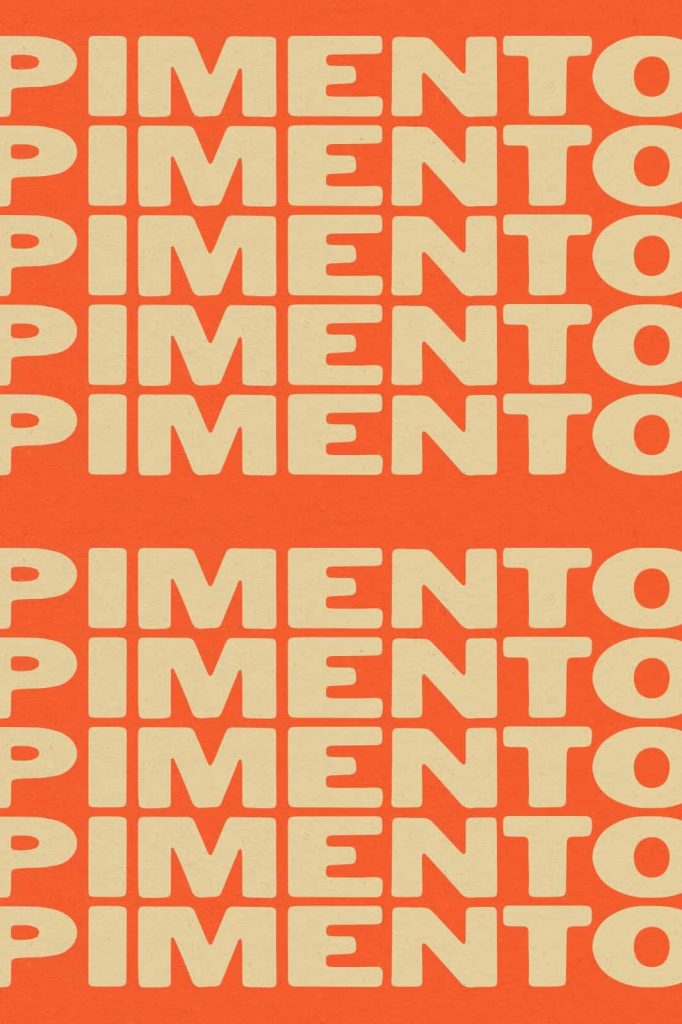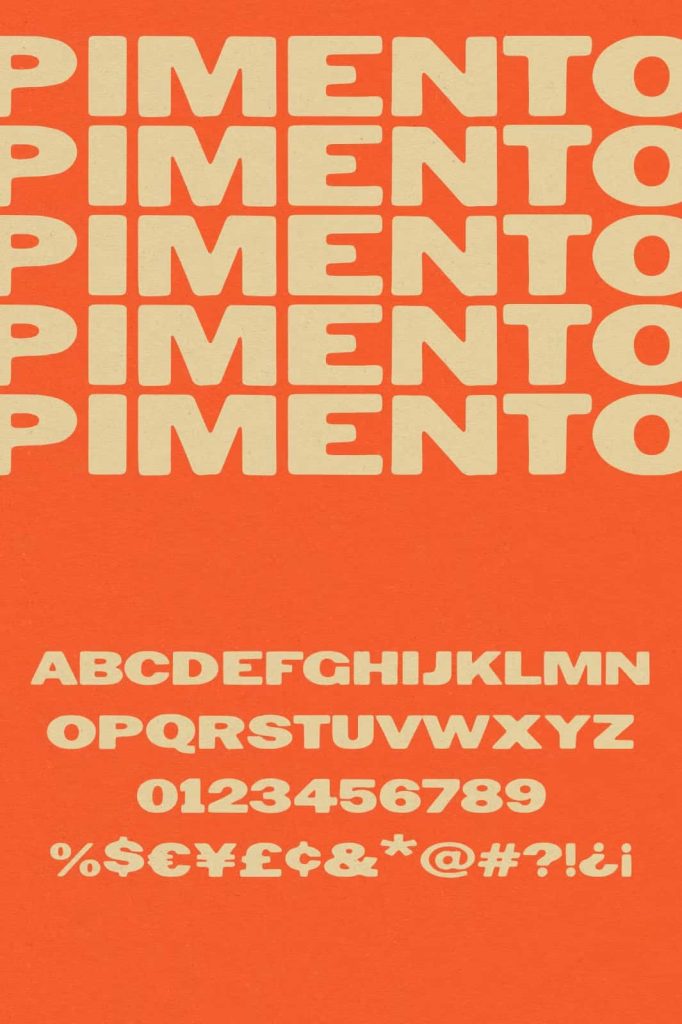
Pimento: The Perfect Bold Uppercase Sans Serif Font for Versatile Design
Pimento is a bold uppercase sans serif font created to deliver clarity, strength, and versatility in every design. Built with precision and refined through careful iteration, this typeface achieves a clean and confident look that works across a wide range of creative applications. It reflects a clear design goal: to create a font that feels strong yet simple, bold yet highly adaptable.
Every detail in Pimento has been thoughtfully adjusted to ensure balance and consistency. The result is a typeface that communicates effectively without unnecessary complexity. Whether you are working on branding, editorial design, or digital content, Pimento provides a reliable foundation that enhances your message.
Bold Uppercase Design with Strong Visual Impact
Pimento uses a full uppercase structure to create a commanding presence. Each letter stands tall and uniform, allowing your text to appear bold and structured. This design choice makes it especially effective for headlines, titles, and branding elements that need to capture attention quickly.
The bold weight ensures that your typography remains visible and impactful, even in busy layouts. It helps establish hierarchy and directs the viewer’s focus to key information, making your designs more effective and engaging.
Core Design Features
- Bold uppercase sans serif style
- Clean and structured letterforms
- Strong readability in large formats
- Consistent visual rhythm across all characters
Refined for Precision and Simplicity
Pimento did not reach its final form by chance. It underwent a detailed refinement process to achieve the ideal balance between simplicity and functionality. Each curve, angle, and proportion has been carefully adjusted to ensure that the font performs well in different contexts.
This refinement results in a concise typeface that avoids unnecessary details. Instead of overwhelming the viewer, Pimento focuses on delivering a clear and direct message. This makes it an excellent choice for modern design projects that value minimalism and efficiency.
Benefits of a Refined Typeface
- Improved readability and clarity
- Professional and polished appearance
- Reduced visual noise in layouts
- Enhanced usability across different media
Highly Versatile for Any Design Project
One of Pimento’s greatest strengths lies in its versatility. This font adapts easily to various design needs, making it a dependable choice for both print and digital work. Its clean structure allows it to blend seamlessly with other design elements while still maintaining its identity.
You can use Pimento for logos, branding, posters, social media graphics, and more. Its bold presence ensures that your designs remain impactful, while its simplicity allows it to fit into different styles and themes.
Recommended Use Cases
- Logo and brand identity design
- Posters and promotional materials
- Website headers and digital interfaces
- Social media content and campaigns
Perfect for Modern and Minimalist Aesthetics
Pimento aligns perfectly with modern and minimalist design trends. Its clean lines and bold structure support layouts that prioritize clarity and functionality. This makes it ideal for projects that require a sleek and contemporary look.
The font’s simplicity also allows it to pair well with other typefaces. You can combine it with lighter fonts for contrast or use it on its own to create a strong, unified design. Its flexibility ensures that it remains relevant across different creative styles.
Design Advantages
- Supports clean and minimal layouts
- Pairs well with other font styles
- Maintains clarity in both print and digital formats
- Adapts to various creative directions
Built for Designers Who Value Efficiency
Pimento simplifies the design process by offering a font that works in almost any situation. Instead of searching for multiple typefaces, you can rely on Pimento to handle a wide range of tasks. Its consistent performance helps you save time and maintain visual coherence across your projects.
This efficiency makes Pimento especially useful for designers working on tight deadlines or complex projects. It provides a dependable solution that delivers strong results without requiring extensive adjustments.
Why Choose Pimento
- Versatile and adaptable across multiple uses
- Bold design for strong visual communication
- Refined details for professional quality
- Efficient solution for modern design workflows
Elevate Your Typography with Confidence
Pimento represents a clear vision of what a bold sans serif font should be. It combines strength, simplicity, and versatility into a single typeface that supports a wide range of creative needs. Its uppercase structure and refined design make it a powerful tool for designers who want to create impactful and memorable visuals.
Choose Pimento when you need a font that delivers consistent results across every project. It transforms your typography into a strong visual statement while maintaining clarity and precision in every detail.